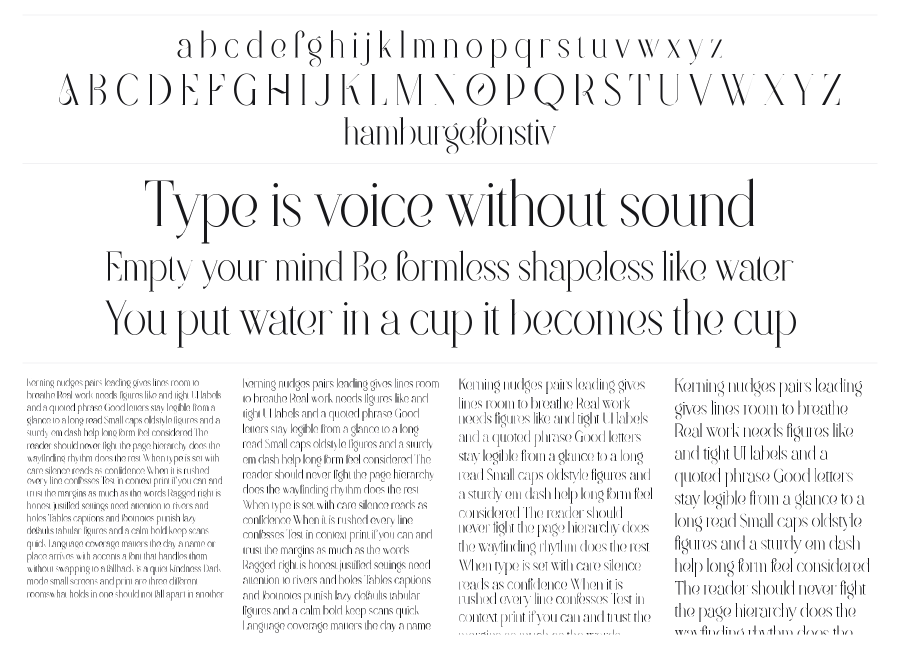
Revolto
by VPcreativeshop
Revolto is a high-contrast modern serif drawing from the Didone tradition, with extreme tension between its hairline strokes and bold verticals. The tall proportions and delicate flat serifs give it a lightness that reads as contemporary luxury rather than period pastiche. It thrives at large sizes where the contrast can fully breathe.